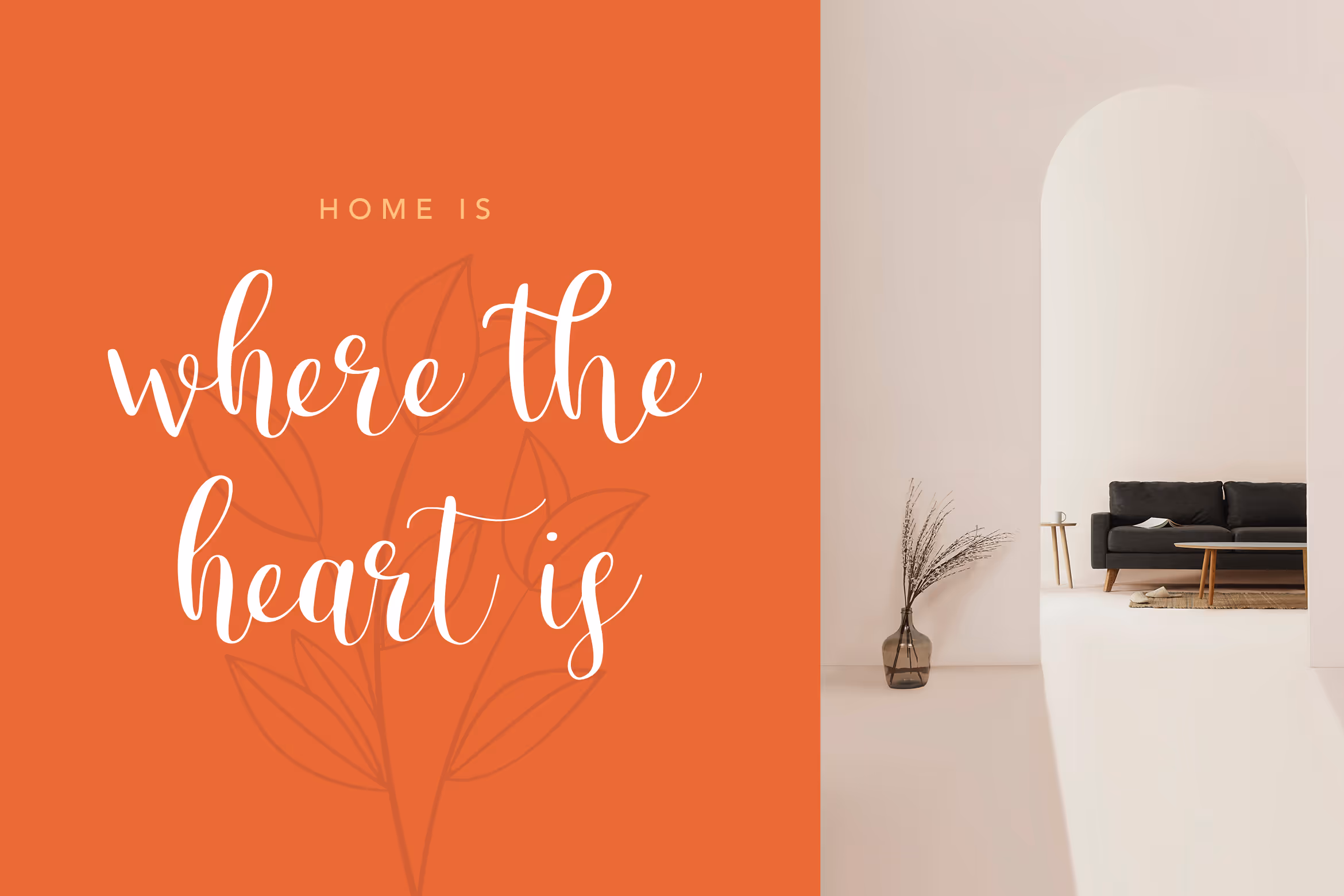
Beauty comes from any kind of aspects, included your writing. Make your post or writing text project to be more beautiful and astonishing by using Sherletta, an elegant handwritten font that suitable for wedding invitation, social media posts, advertisements, quoted text, photography, fashion, boutique, and any beauty projects.
Sherletta Elegant Handwritten Font features a varying baseline, smooth lines, gorgeous glyphs, and stunning ligatures and makes with a high level of legibility. Even when you use it for a beauty-themed or a stylish text overlay background images, it will look adorable and wonderful.